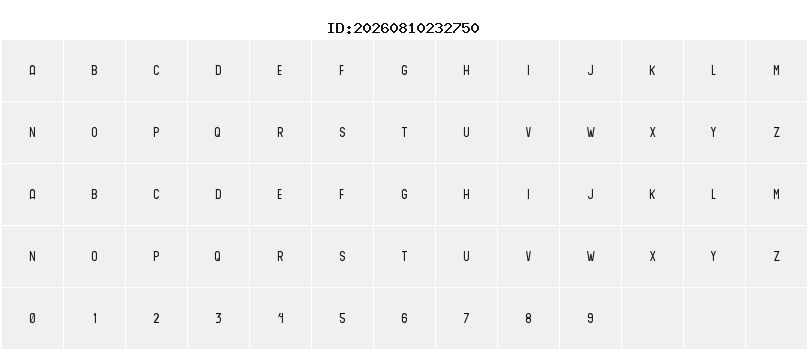
About Ruth Slab One.ttf
Ruth Slab One.ttf is a modern, elegant sans-serif font designed for ultimate readability and visual harmony. Perfect for branding, headlines, web design, and print materials.